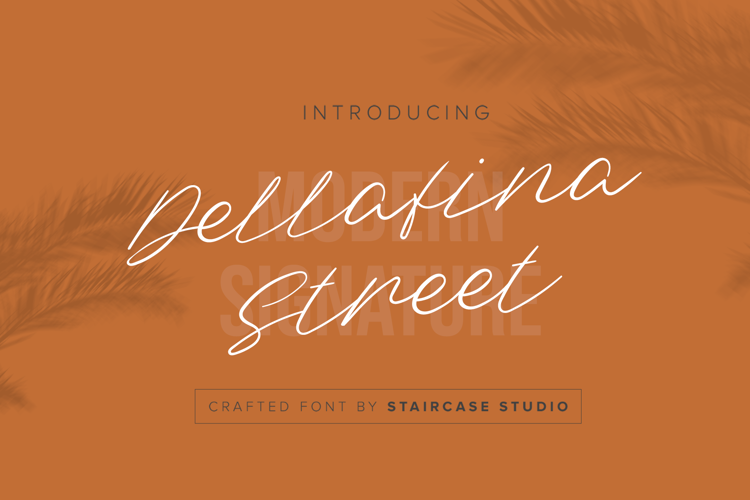
Dellafina Street Font
About Dellafina Street Font
Dellafina Street Font is a Italic font and was created on . Since then, it has been downloaded 1,096 times and added to 36 collections. 0 people have liked Dellafina Street Font and given it a thumbs up.
High Italic Regular Style
Dellafina Street script font. A collection of letters and numbers suitable your projects also great for Logotype, Branding Design, Logo Design, Digital Lettering Arts, T-Shirt/Apparel, Poster, Magazine, Signs, Advertising Design, and any design needs.